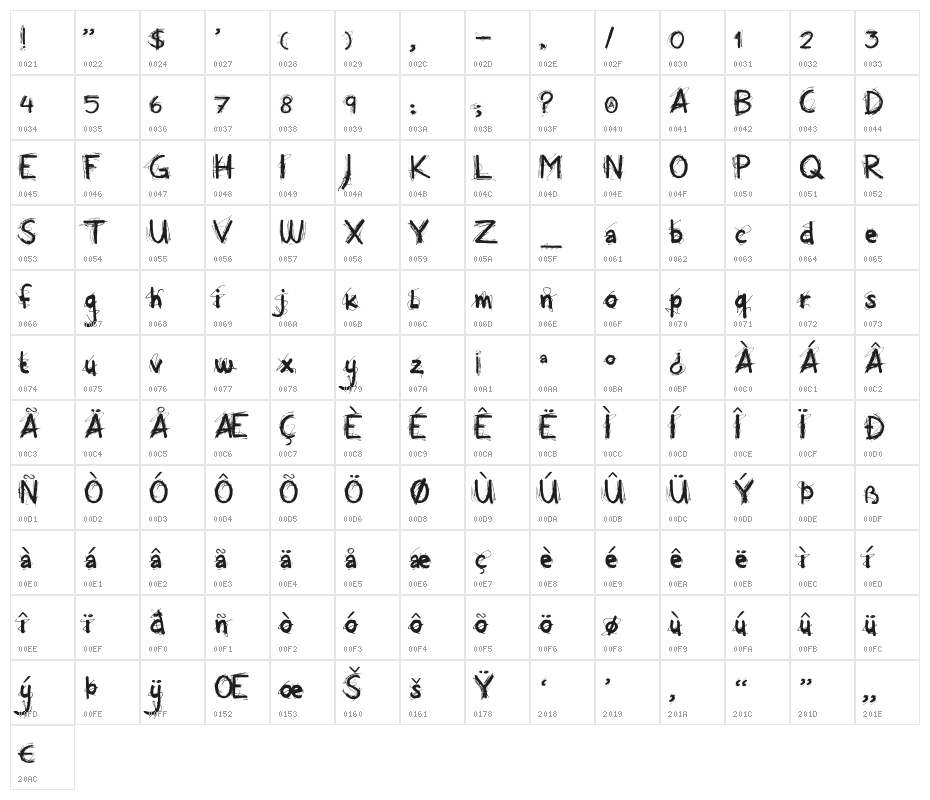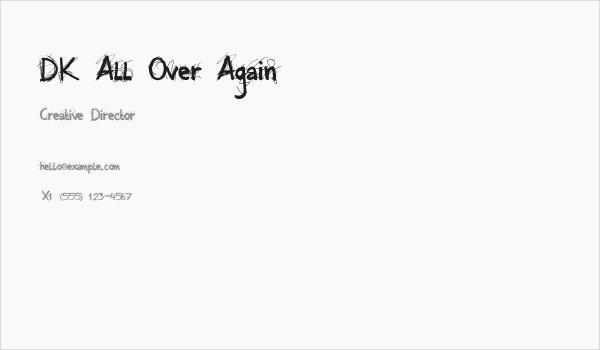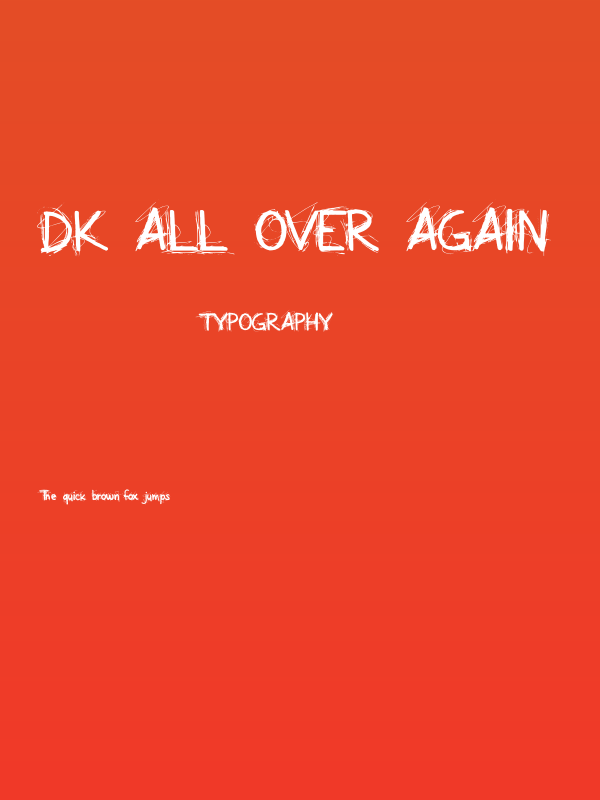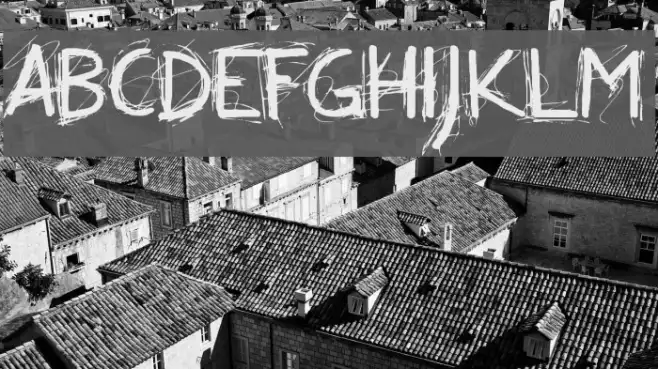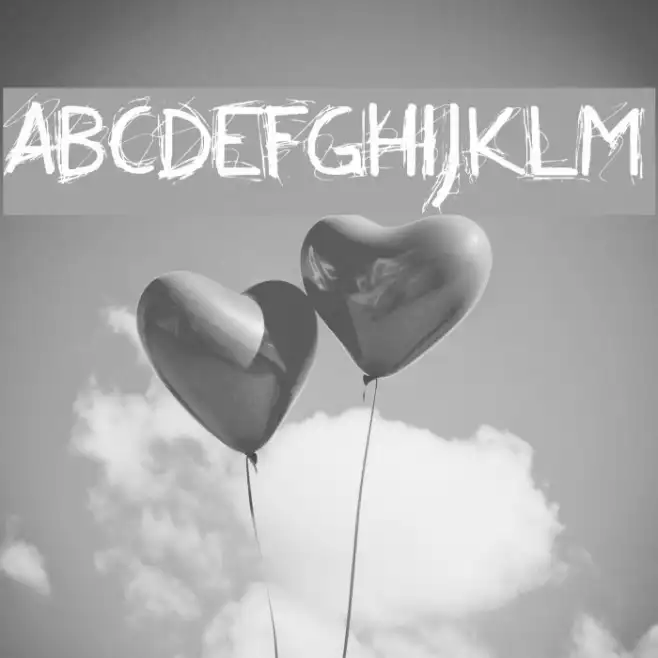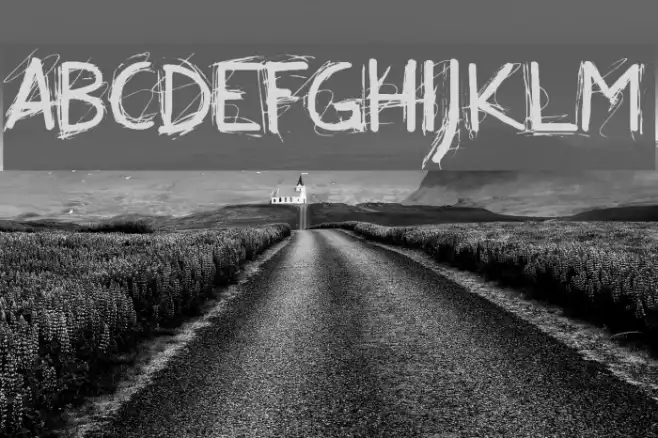
DK All Over Again Font
DK All Over Again Description
This font features a highly expressive and chaotic design, characterized by its rough, hand-drawn appearance. The strokes are uneven and appear as if they were sketched with a brush or pen, giving each character a unique, artistic flair. The uppercase and lowercase letters maintain a consistent style, with exaggerated curves and angles that add to the overall dynamic feel. Numbers and special characters follow the same aesthetic, ensuring a cohesive look across all glyphs. The font's raw and energetic style makes it stand out, ideal for projects that require a bold and unconventional typeface.
| Proposed Projects | Ideal for album covers, posters, graffiti art, or any project needing a bold, artistic touch. |